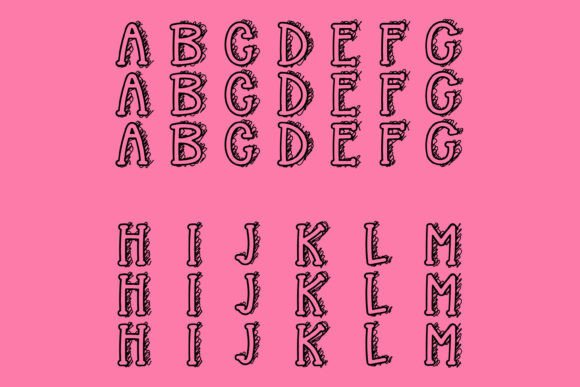
Introducing Messydoodles Stacked Font: Unleash Your Creativity with this Quirky, Scribbly Font
Are you tired of using the same old fonts for your creative projects? Do you want to add a touch of playfulness and energy to your designs? Look no further than Messydoodles Stacked Font, a unique and charming font that’s perfect for bringing a bit of messy magic to your work.
What is Messydoodles Stacked Font?
Messydoodles Stacked Font is a quirky, scribbly font that’s designed to look like kids doodling in the margins of their notebooks. It’s a font that’s bursting with energy and character, making it perfect for creative projects, silly titles, fun school graphics, and anything that needs a bit of whimsy.
This font is not just a simple typeface, but an experience. It’s an invitation to let go of perfection and embrace the beauty of imperfection. With Messydoodles Stacked Font, you can add a touch of playfulness to your designs and make them stand out from the crowd.
Characteristics of Messydoodles Stacked Font
So, what makes Messydoodles Stacked Font so special? Here are just a few of its key characteristics:
- Wild lines: Messydoodles Stacked Font features wild, unpredictable lines that give it a truly unique and playful feel.
- Scribbly charm: This font has a certain scribbly charm that’s impossible to resist. It’s like having a friend’s handwriting in your designs.
- Energy and character: Messydoodles Stacked Font is bursting with energy and character, making it perfect for designs that need a bit of personality.
- Perfect for kids’ projects: This font is perfect for kids’ projects, such as coloring books, school graphics, and more.
Use Cases for Messydoodles Stacked Font
So, what can you use Messydoodles Stacked Font for? The possibilities are endless, but here are a few ideas to get you started:
- Coloring books: Add a touch of playfulness to your coloring books with Messydoodles Stacked Font.
- Comic captions: Use this font to add a bit of humor and personality to your comic captions.
- School graphics: Messydoodles Stacked Font is perfect for school graphics, such as posters, flyers, and more.
- Silly titles: Use this font to create silly titles for your videos, blog posts, or social media updates.
- Creative projects: This font is perfect for any creative project that needs a bit of whimsy and personality.
Why Choose Messydoodles Stacked Font?
So, why should you choose Messydoodles Stacked Font for your next project? Here are just a few reasons:
- Unique and playful: This font is truly one-of-a-kind, and its playful feel is sure to capture your audience’s attention.
- Versatile: This font can be used for a wide range of projects, from kids’ books to comic books and more.
- Fun and engaging: Messydoodles Stacked Font is sure to add a touch of fun and engagement to your designs.
Tips for Using Messydoodles Stacked Font
Here are a few tips for getting the most out of Messydoodles Stacked Font:
- Use it sparingly: While Messydoodles Stacked Font is playful and fun, it can be overwhelming if used too much. Use it sparingly to add a touch of whimsy to your designs.
- Experiment with colors: This font looks great in a variety of colors, so don’t be afraid to experiment and find the perfect hue for your project.
- Pair it with other fonts: Messydoodles Stacked Font pairs well with other fonts, so try combining it with a more traditional font for a unique look.
- Have fun: The most important thing is to have fun with Messydoodles Stacked Font! It’s a font that’s meant to be playful and engaging, so don’t be afraid to let your personality shine through.
In conclusion, Messydoodles Stacked Font is a unique and playful font that’s perfect for adding a touch of whimsy to your designs. With its wild lines, scribbly charm, and energy, this font is sure to capture your audience’s attention and bring a bit of messy magic to your projects.
Whether you’re working on a kids’ book, a comic book, or just a fun school graphic, Messydoodles Stacked Font is the perfect choice. So why not give it a try and see what kind of creative projects you can come up with?